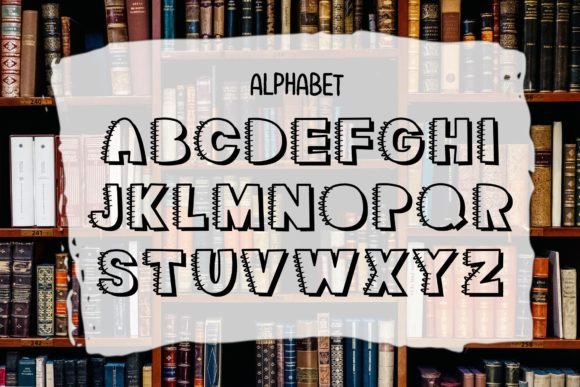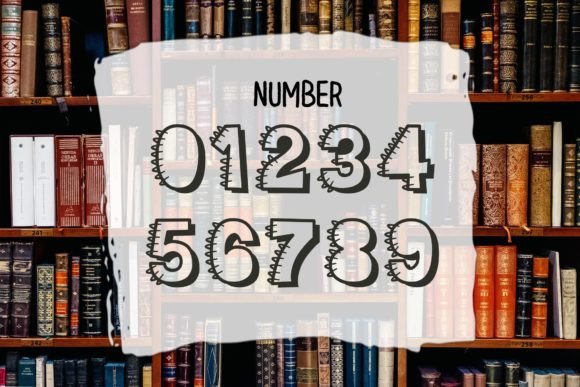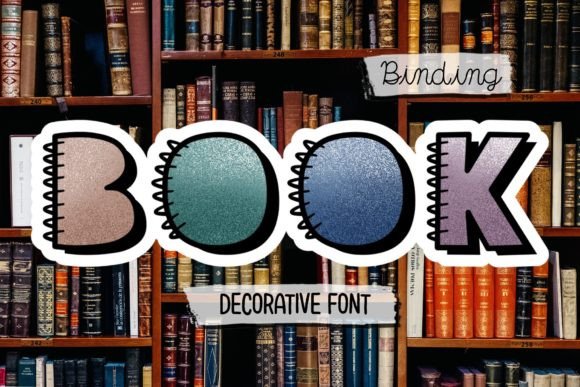
The Joy of Book Binding Font: A Designer’s New Best Friend
I still remember the day I stumbled upon the perfect font for a crafty DIY project I was working on. I had been searching for what felt like hours, trying out font after font, but nothing seemed quite right. That was until I discovered Book Binding Font. It was love at first sight! ✨ The quirky, playful design instantly captured the essence of my project, and I knew I had found my new go-to font.
So, what makes Book Binding Font so special? Let’s dive into the good stuff:
• ✅ Unique and quirky design: Book Binding Font is perfect for adding a touch of personality to your designs.
• ✅ Highly versatile: From logos and branding to social media and crafty DIY projects, this font can do it all.
• ✅ Easy to read: Despite its playful design, Book Binding Font is surprisingly easy to read, making it perfect for body text.
• ✨ Fun and creative: This font is sure to bring a smile to your face and inspire your creativity.
Of course, no font is perfect, and Book Binding Font does have a few small quirks:
• ⚠️ Limited use in formal designs: While Book Binding Font is amazing for creative projects, it may not be the best fit for more formal designs.
• 🤔 Some characters may require adjustment: Depending on your design, you may need to adjust the spacing or kerning of certain characters to get the best results.
The Story Behind Book Binding Font
Book Binding Font was designed with the creative hobbyist in mind. The designer, inspired by the art of bookbinding, set out to create a font that was both functional and fun. The result is a font that’s perfect for adding a touch of personality to your designs.
Font Name Book Binding Font
Author DREAMs Soul G.
What is Book Binding Font? Book Binding Font is a fun and quirky decorative font that’s perfect for logos, branding, social media, crafty DIY projects, and more!
Is Book Binding Font easy to read? Yes, despite its playful design, Book Binding Font is surprisingly easy to read, making it perfect for body text.
Does Book Binding Font come with OpenType features? Yes, Book Binding Font includes OpenType features, glyphs, and stylistic alternates, making it a versatile font for a wide range of designs.